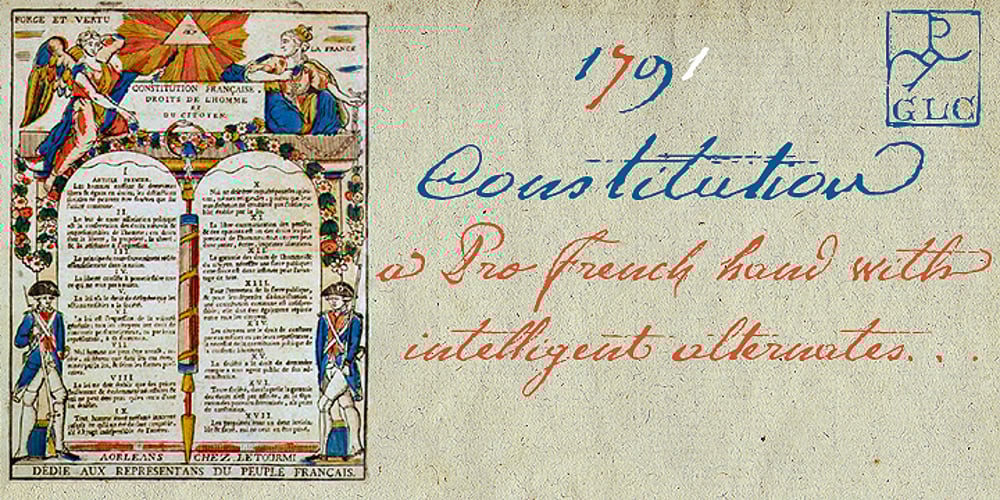
1791 Constitution Font Family was designed by Gilles Le Corre and published by GLC. 1791 Constitution contains 1 styles and family package options. In the year 1791, the 20th of June, the king of France Louis XVI attempted to flight from Paris to the Luxembourg. He was intercepted on the road and taked to Paris again on the 21st. A few month later, in September, the first French democratic constitution was promulgated, transferring the sovereignty from the king to the French people. This font was created inspired from the steady hand of a lawyer writing a farm renting contract a few days after the advent of the new French regime. It is a “Pro” font containing Western (including Celtic) and Northern European, Icelandic, Baltic, Eastern, Central European and Turquish diacritics. The numerous alternates and ligatures allow to made the font looking as closely as possible to a real hand. Using an OTF software, the features allow to vary the characters without anything to do but to select contextual alternates and standard ligatures and/or stylistic alternates options.